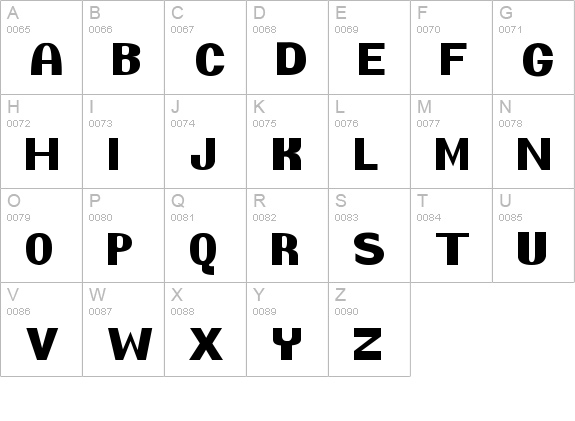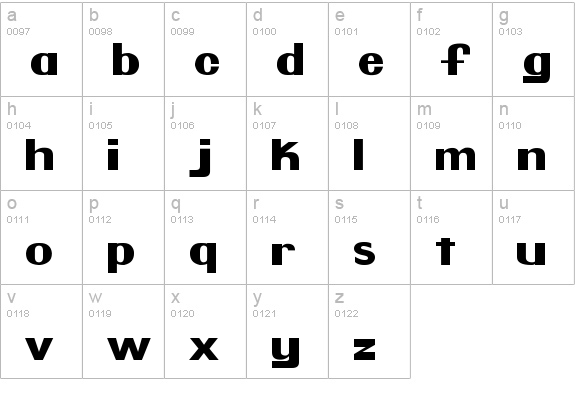
Pretendo Font Details
Introducing Pretendo font, a versatile and stylish typeface that combines modern elegance with a playful twist. With its clean lines and unique letter shapes, Pretendo is perfect for a wide range of design projects, from branding to social media graphics and everything in between. This eye-catching font is sure to make your text stand out and leave a lasting impression on your audience. Whether you're looking to add a touch of sophistication to your designs or create a fun and whimsical feel, Pretendo has you covered. Best of all, Pretendo is completely free to download at FontsMarket.com, making it accessible to designers of all levels. So why wait? Give your projects a fresh new look with Pretendo font today!